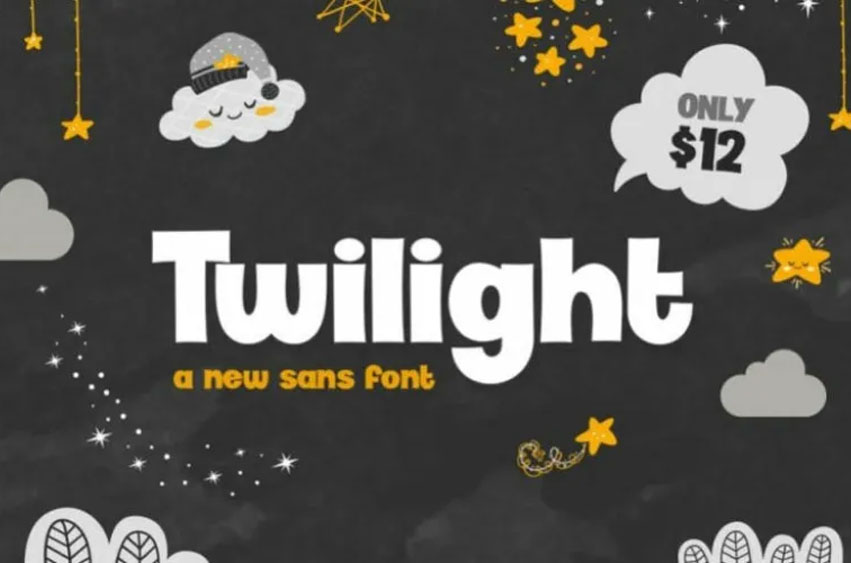
Twilight Free Font
Twilight Free Font is cute little typeface is perfect for a wide range of projects especially anything requiring a little cute!
Just look at the preview images of a kids themed night time story book scene! How cute!